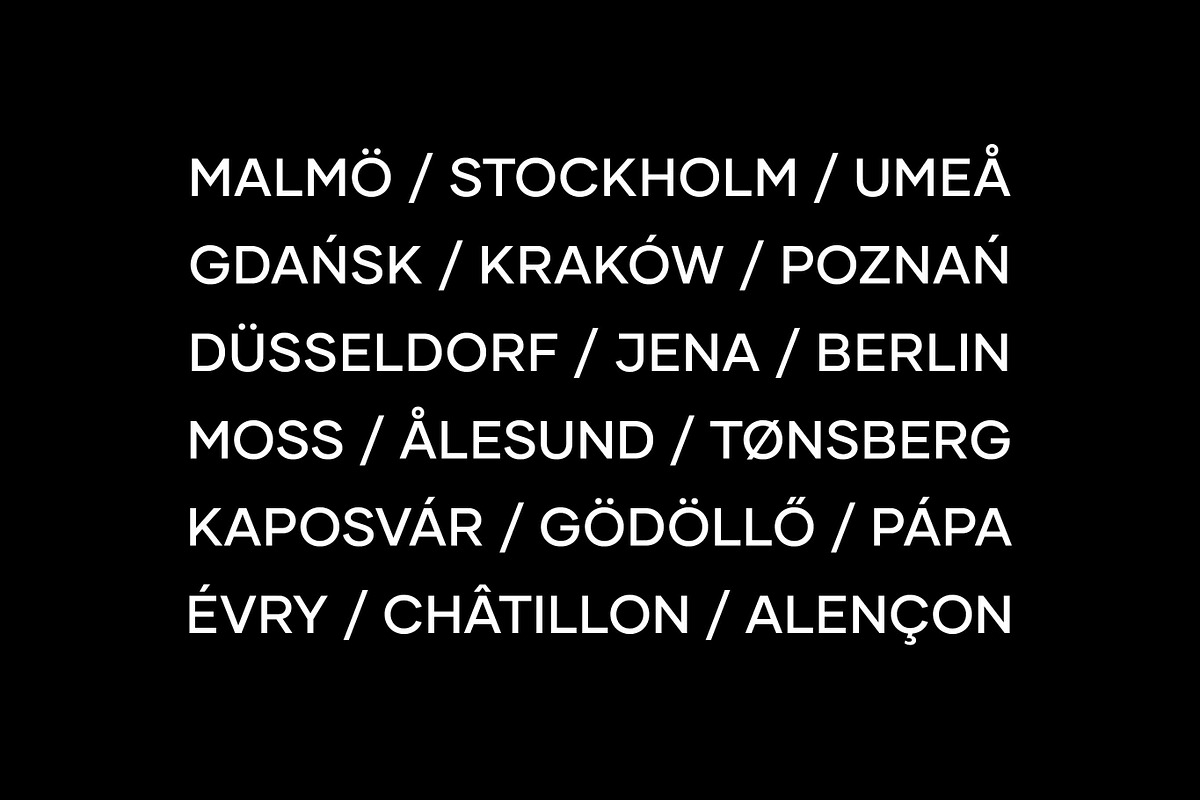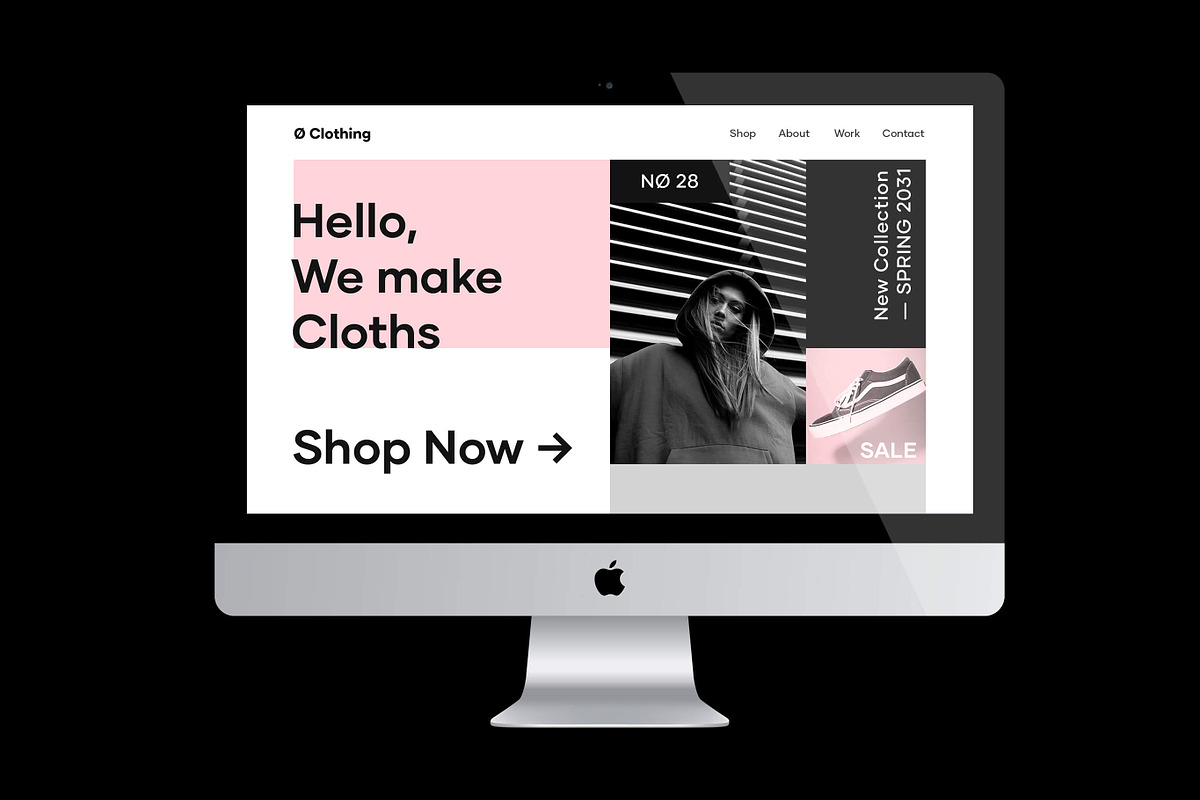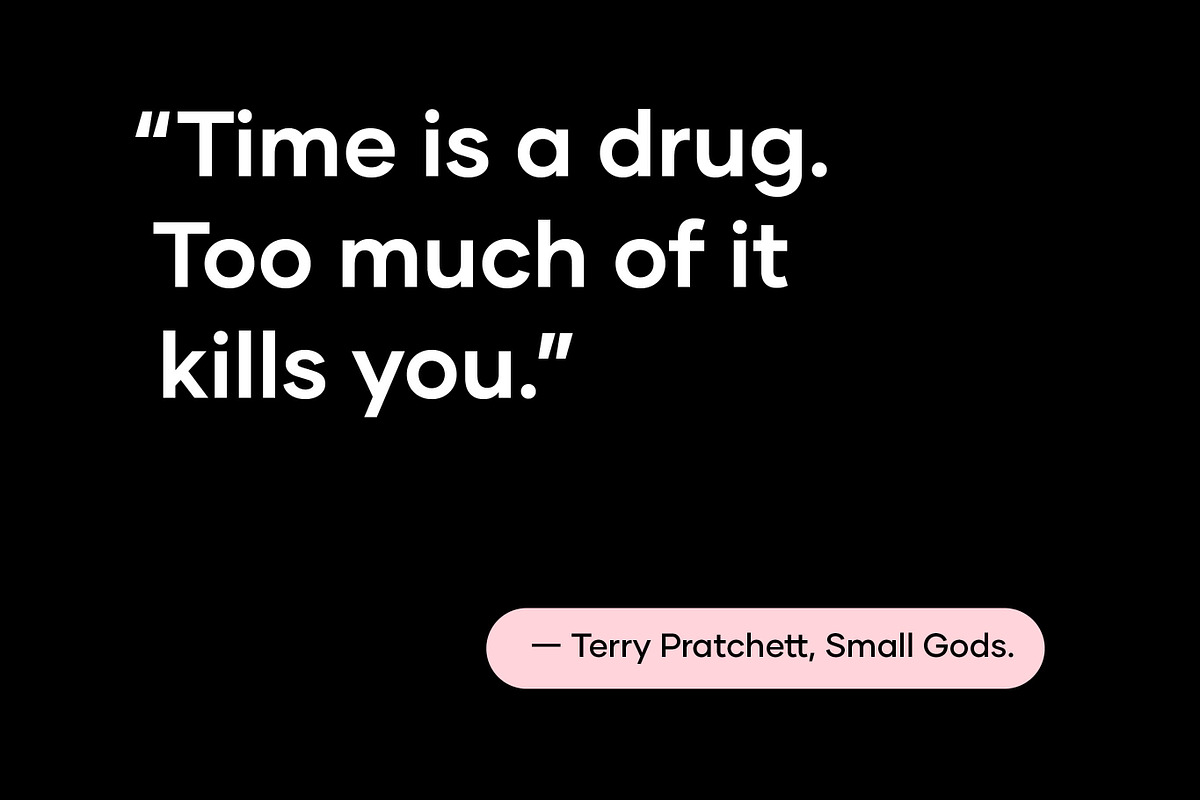
Gilmer – Geometric Sans Serif
Gilmer is a fresh, geometric, sans-serif font family inspired by the iconic typefaces like Futura and Avant Garde. Gilmer has a big x-height value, geometrical letterforms, sharp edges and very small stroke contrast as the neo-grotesk fonts from 20th century. The typeface is versatile and can be successfully used in magazines, posters, branding, websites etc.
6 Styles, 6 Weights
Extended Latin Support
500+ Glyphs Set
OpenType Features
Precise Kerning